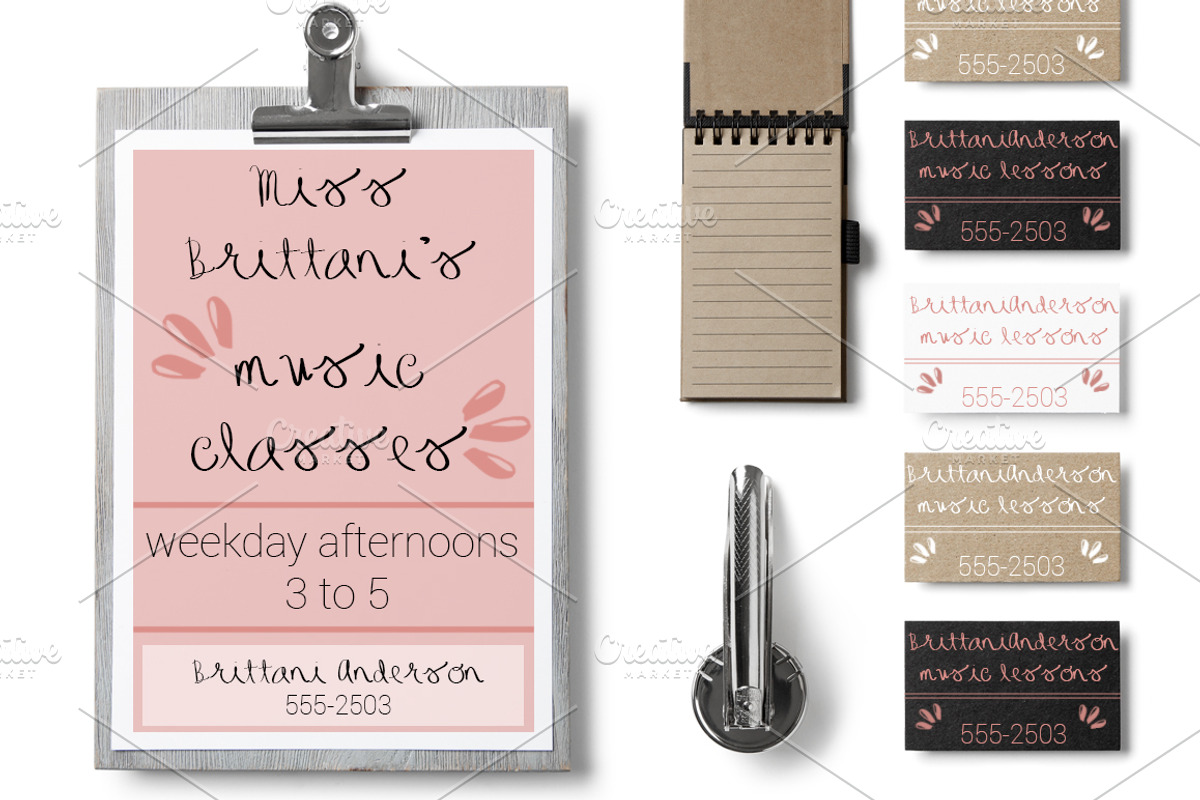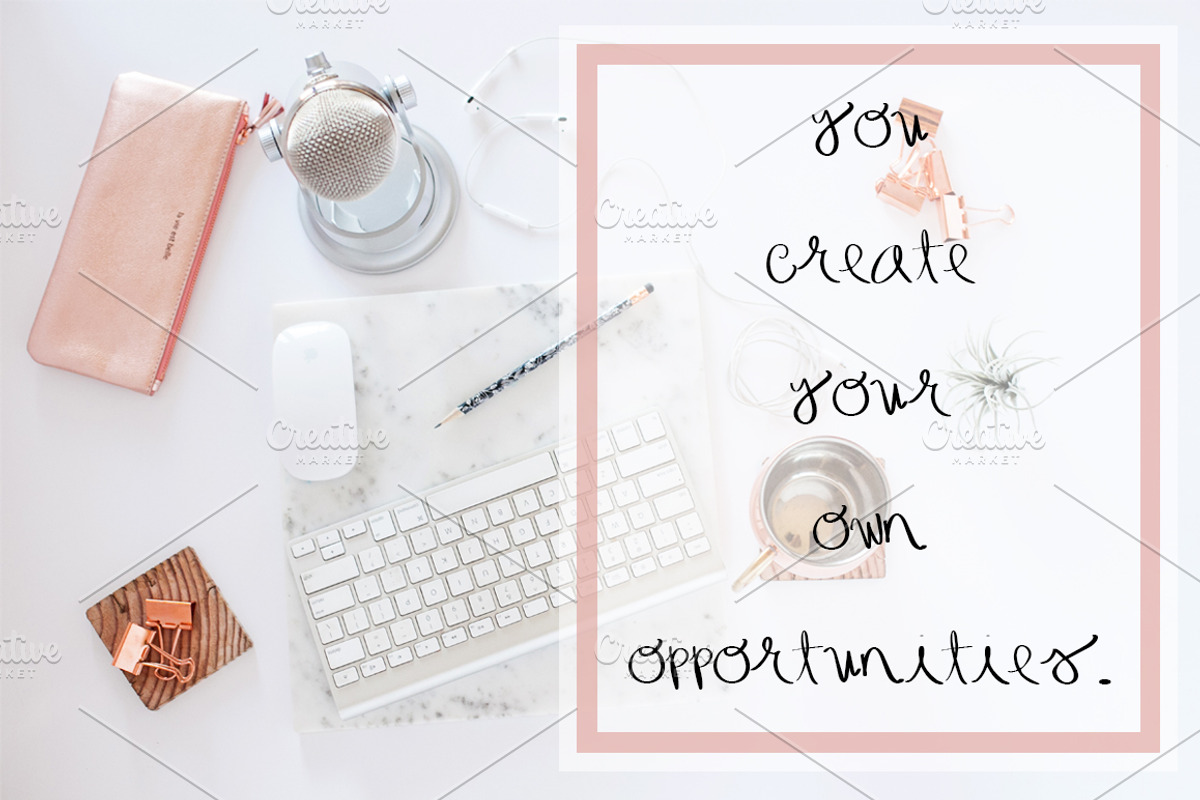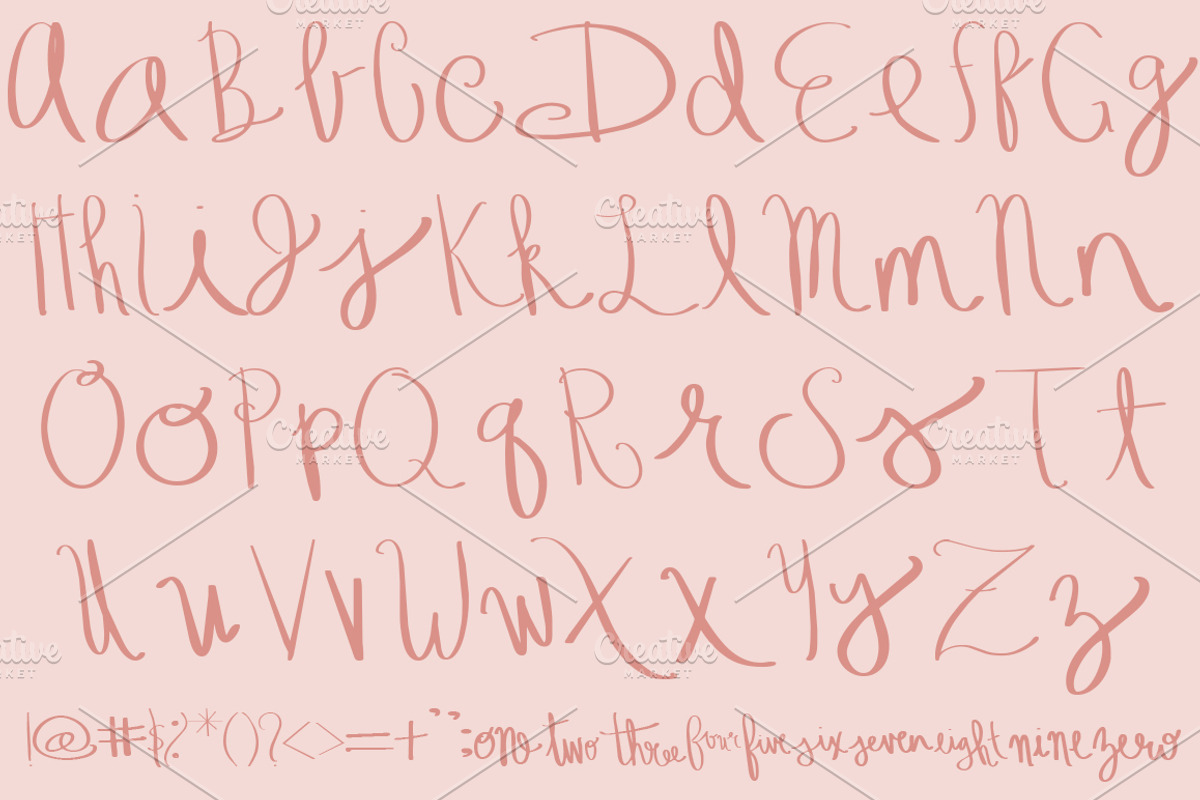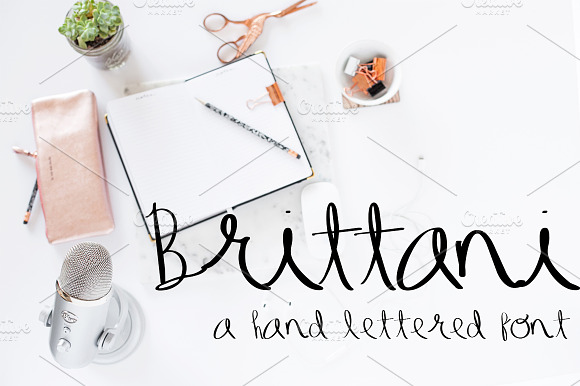
BRITTANI Hand Lettered Font
Meet Brittani! Brittani is a unique font with a special personality and a bit of a girly flair. Hand-lettered, this font is a funky addition to any project. Complete with alphabet, numbers, and symbols.